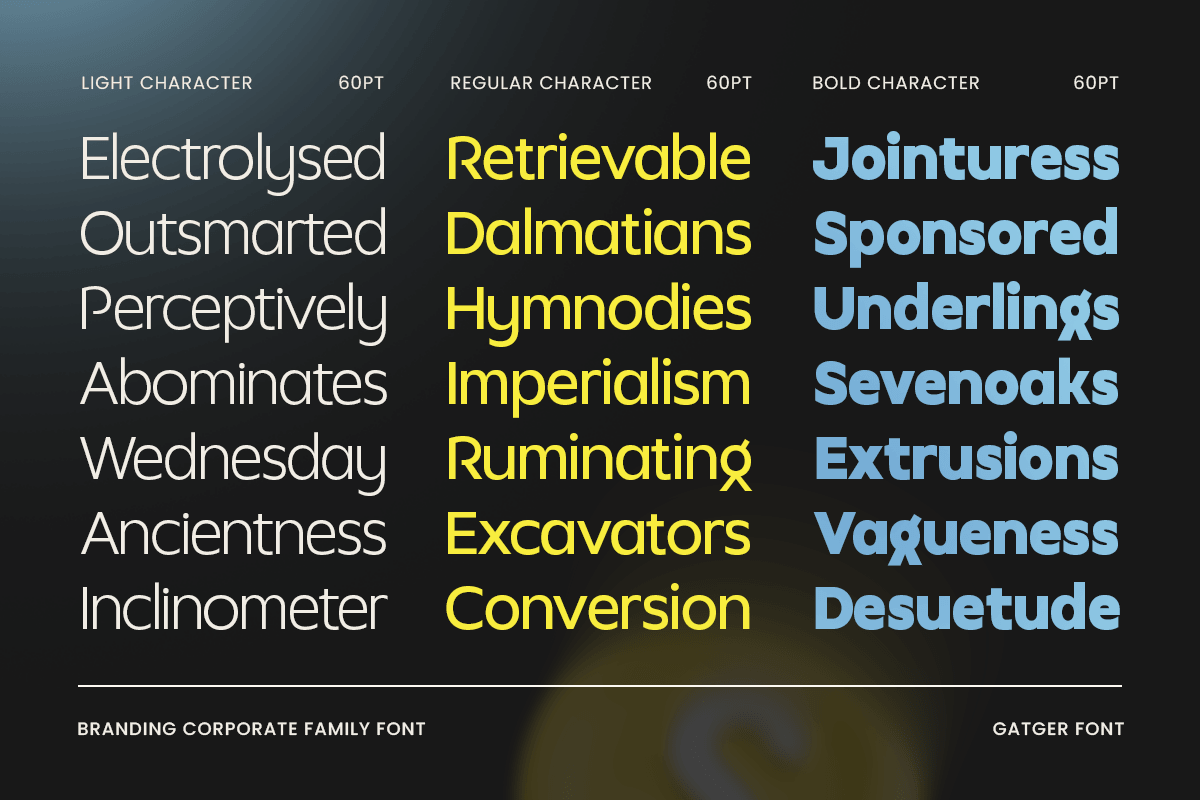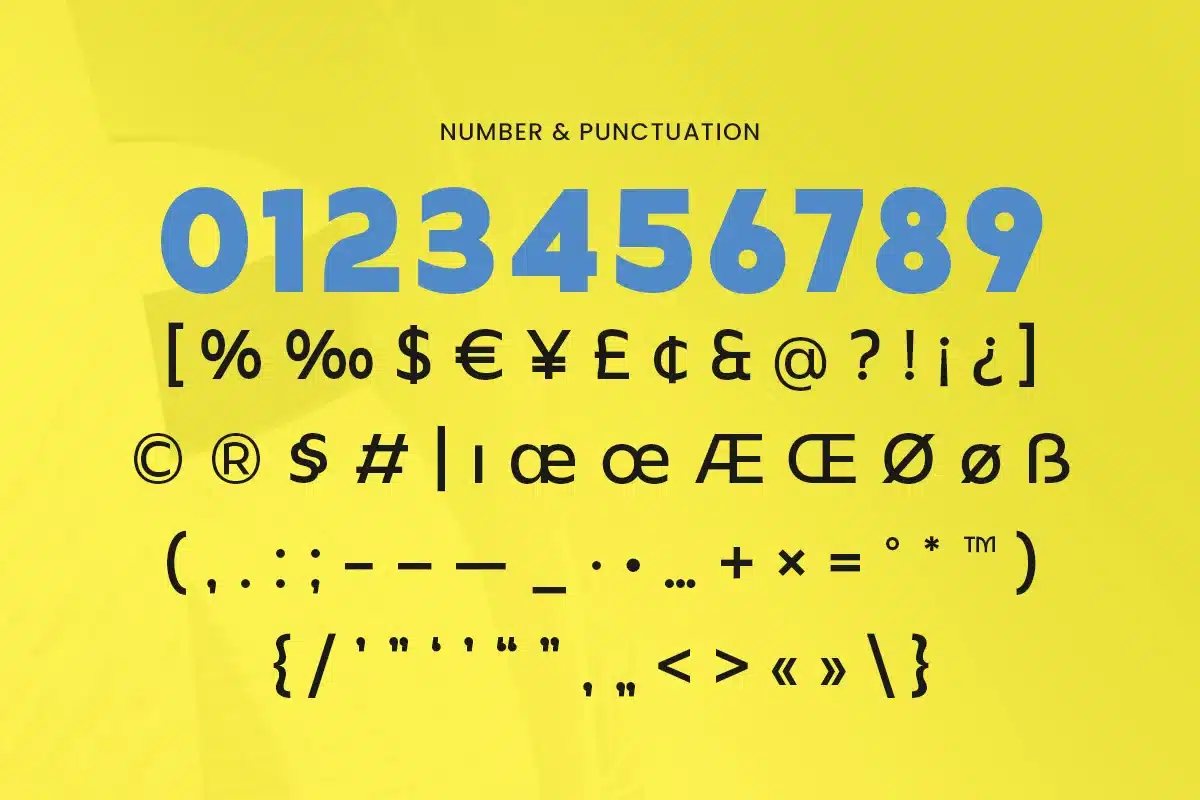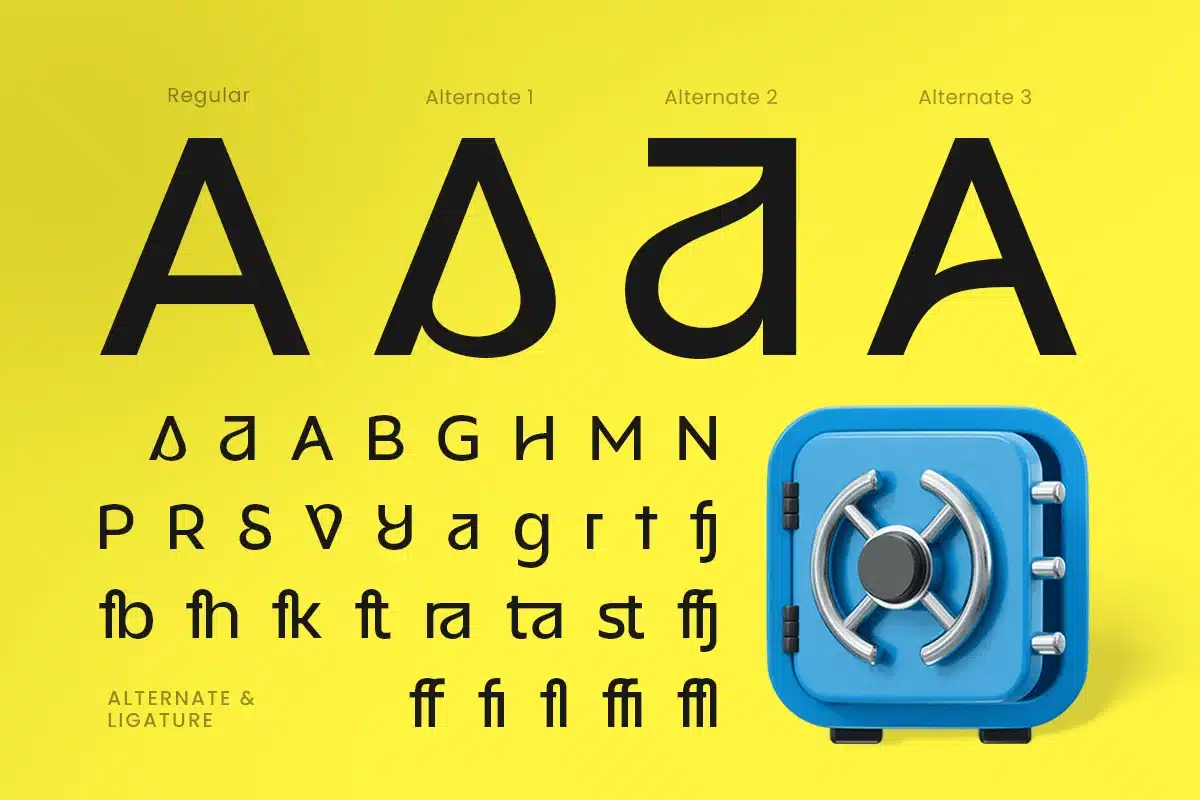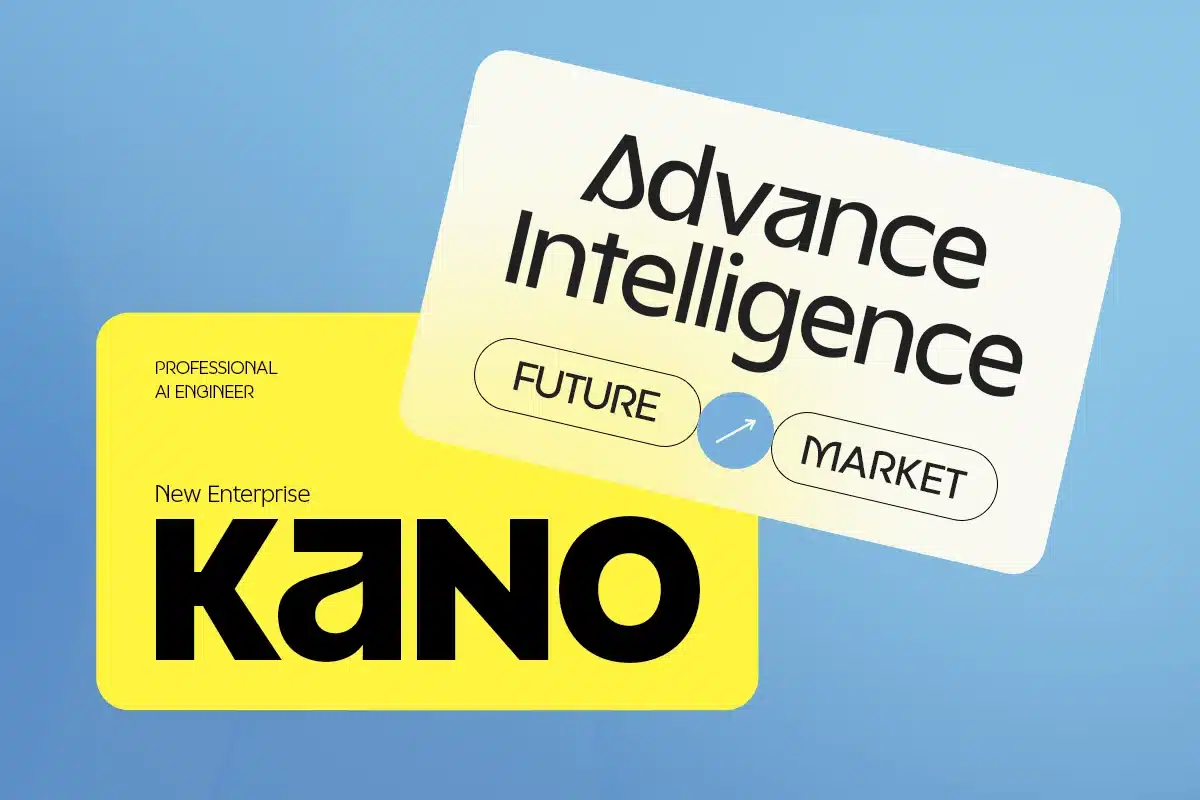
Gatger – Display Branding Corporate Family Font
Gatger – Display Branding Corporate Family Font is a modern typeface family crafted to support professional branding with clarity, structure, and visual consistency. Inspired by corporate design systems and contemporary typography, Gatger is built for businesses that require a strong and reliable visual identity.
With its clean letterforms, balanced proportions, and harmonized family styles, Gatger enables designers to create cohesive logos, headlines, and corporate materials across multiple platforms. The display-focused character ensures strong visibility while maintaining a polished and professional tone.
Gatger Font Features
- Complete character set including uppercase, lowercase, numerals, symbols, and punctuation
- Modern display letterforms optimized for corporate branding
- OpenType features included to support professional typography and branding systems
Gatger is Perfect For
- Corporate branding and business identity systems
- Professional logo and logotype design
- Enterprise, startup, and company visuals
- Website headers and corporate communication
- Marketing materials and business presentations
- Clean and contemporary design projects
Whether you are developing a corporate brand system, designing professional business visuals, or building a modern identity framework, Gatger provides the structure, clarity, and consistency needed for strong branding.